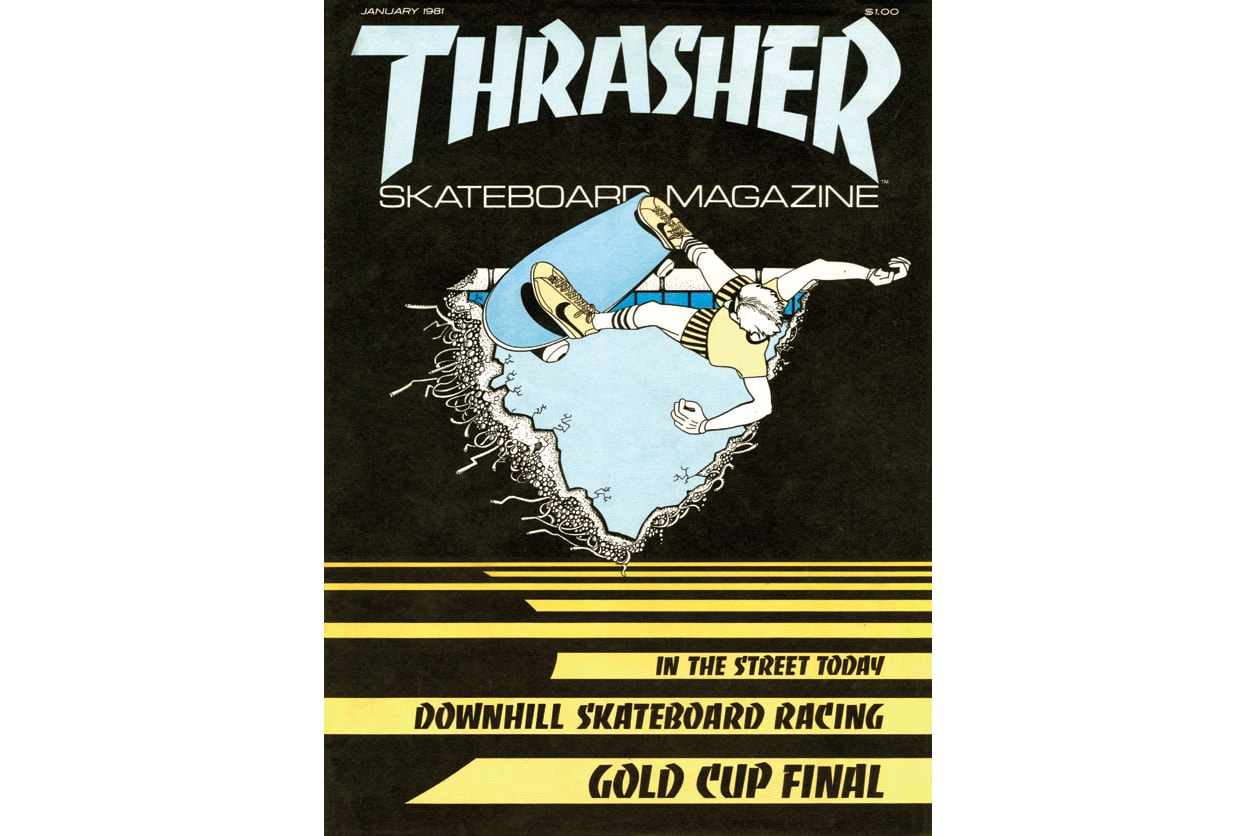
Thrasher Magazine Font
Thrasher Magazine Font - Web feb 22, 2023 at 02:04. I just finished a tshirt design commission that involved recreating this logo, and this was the first thread that. Web the font used for the logo of the magazine is banco, an inclined titling typeface originally designed by roger excoffon for the. Web — font used for 'magazine' — i know the thrasher font is banco, but what font is used for magazine?